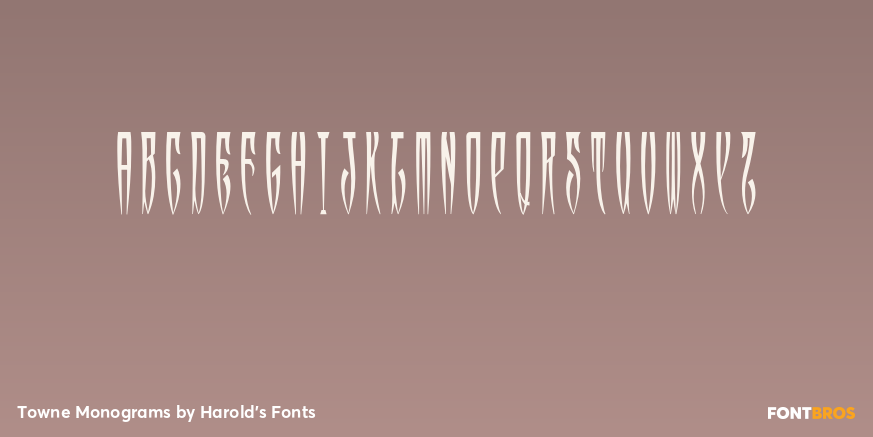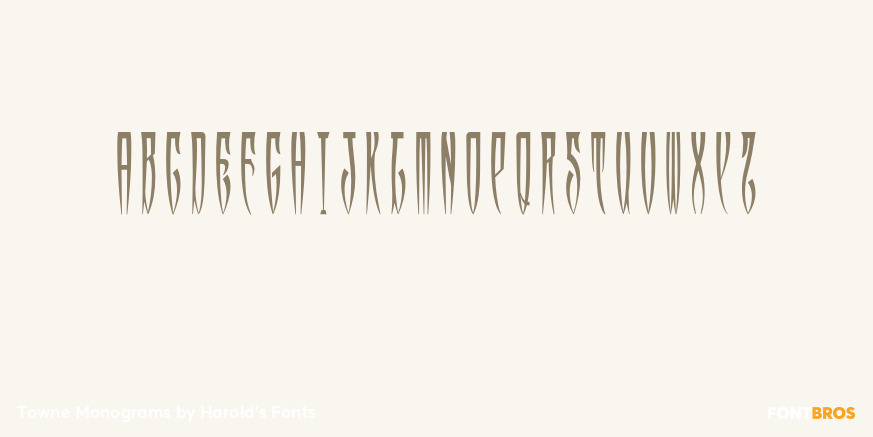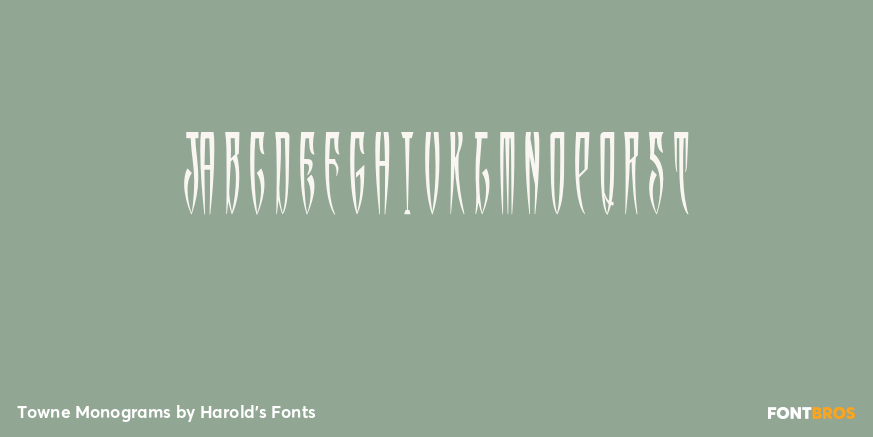
Towne Monograms
Font Family by Harold's Fonts
UPTOWNE, DOWNTOWNE, and MIDTOWNE MONOGRAMS are 3 fonts designed to create custom monograms in a unique narrow and spiky style. Inspired by 1940s elegance, you can choose to make 2- or 3-letter monograms along a diagonal or straight across. A choice of bars at the top can link your monogram visually.